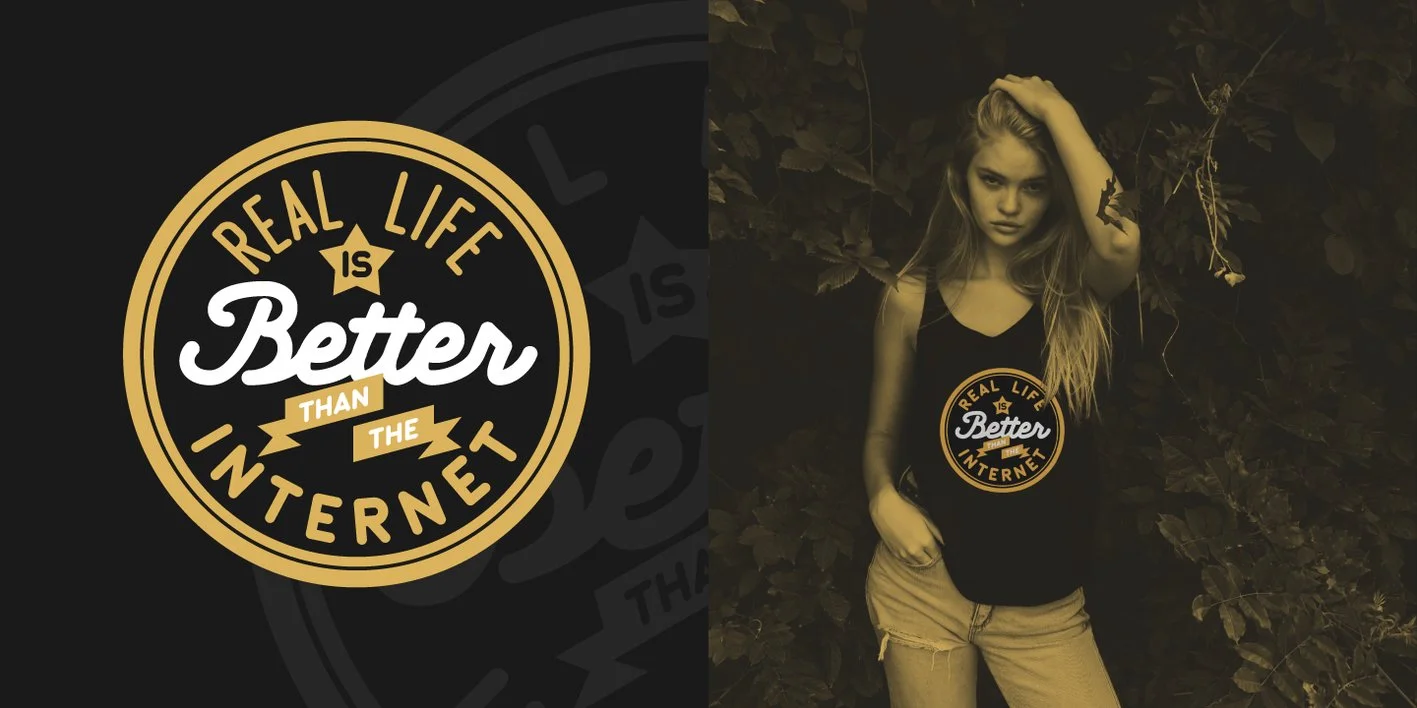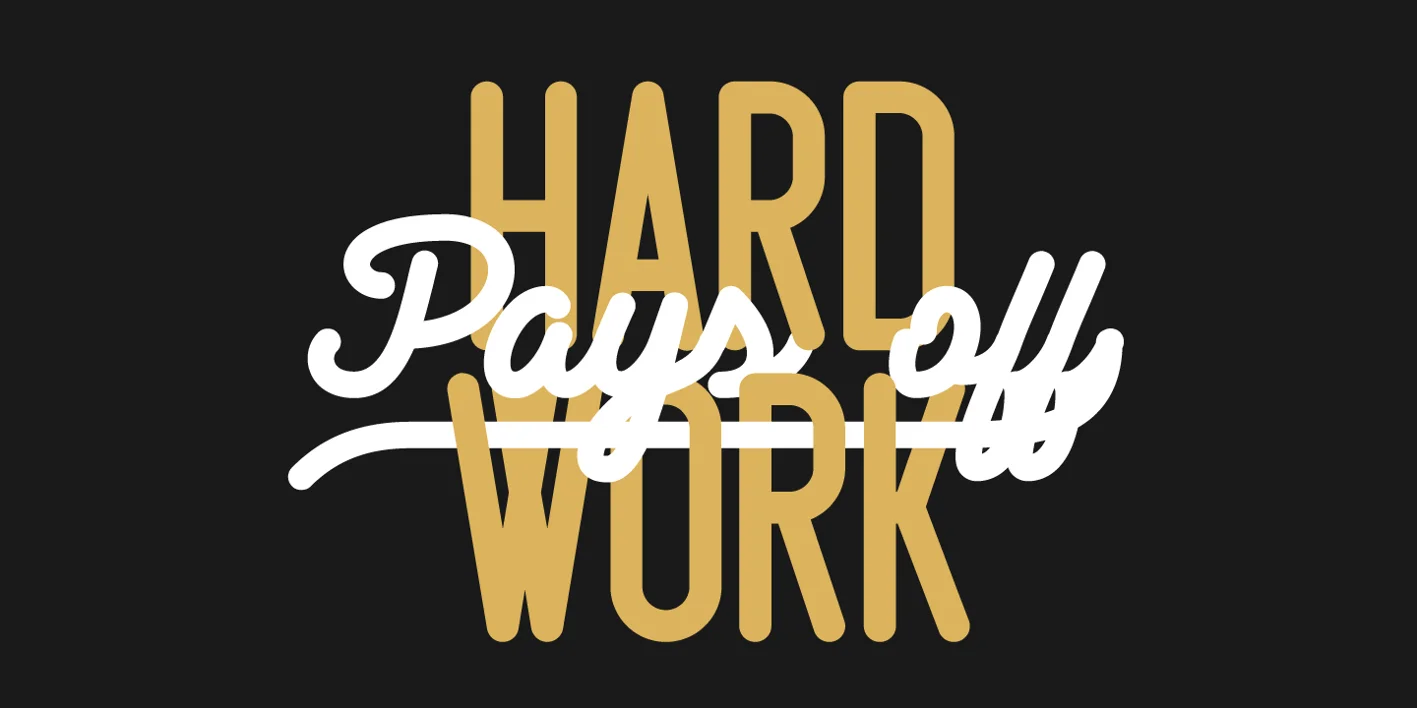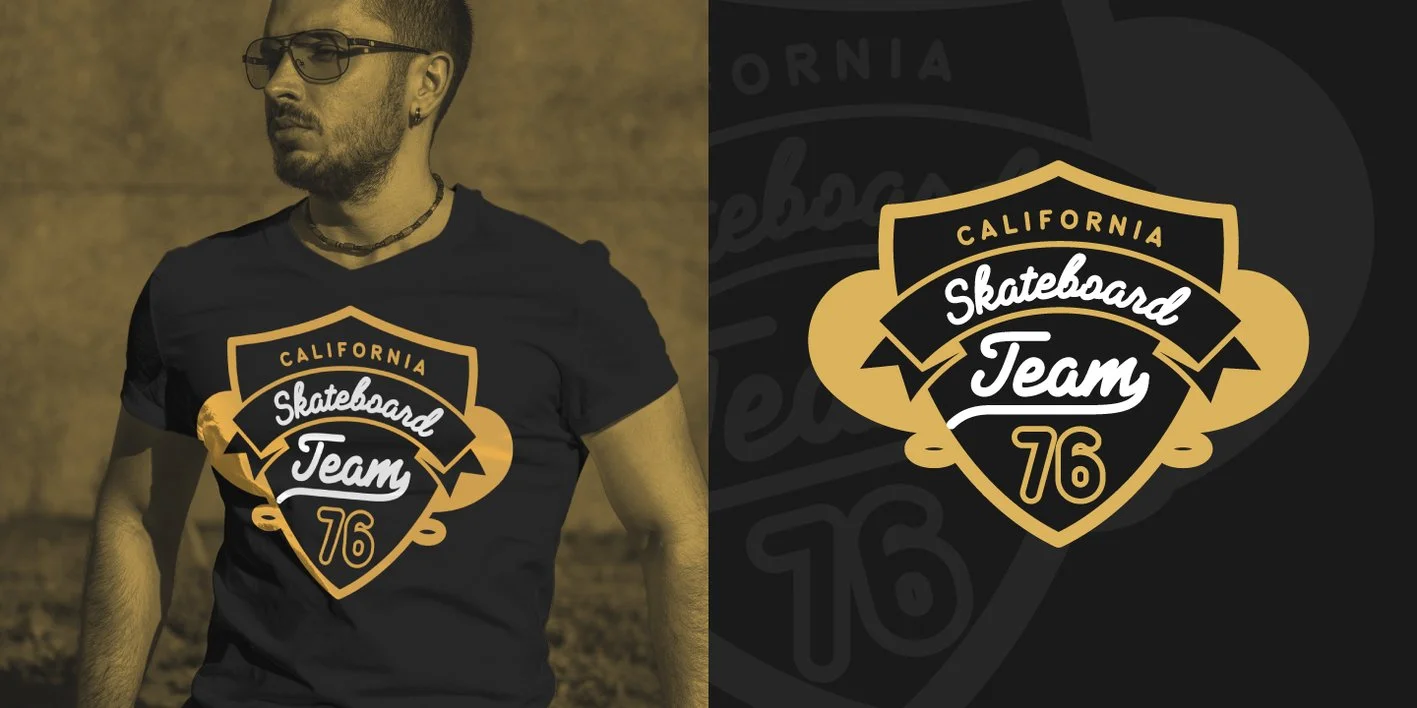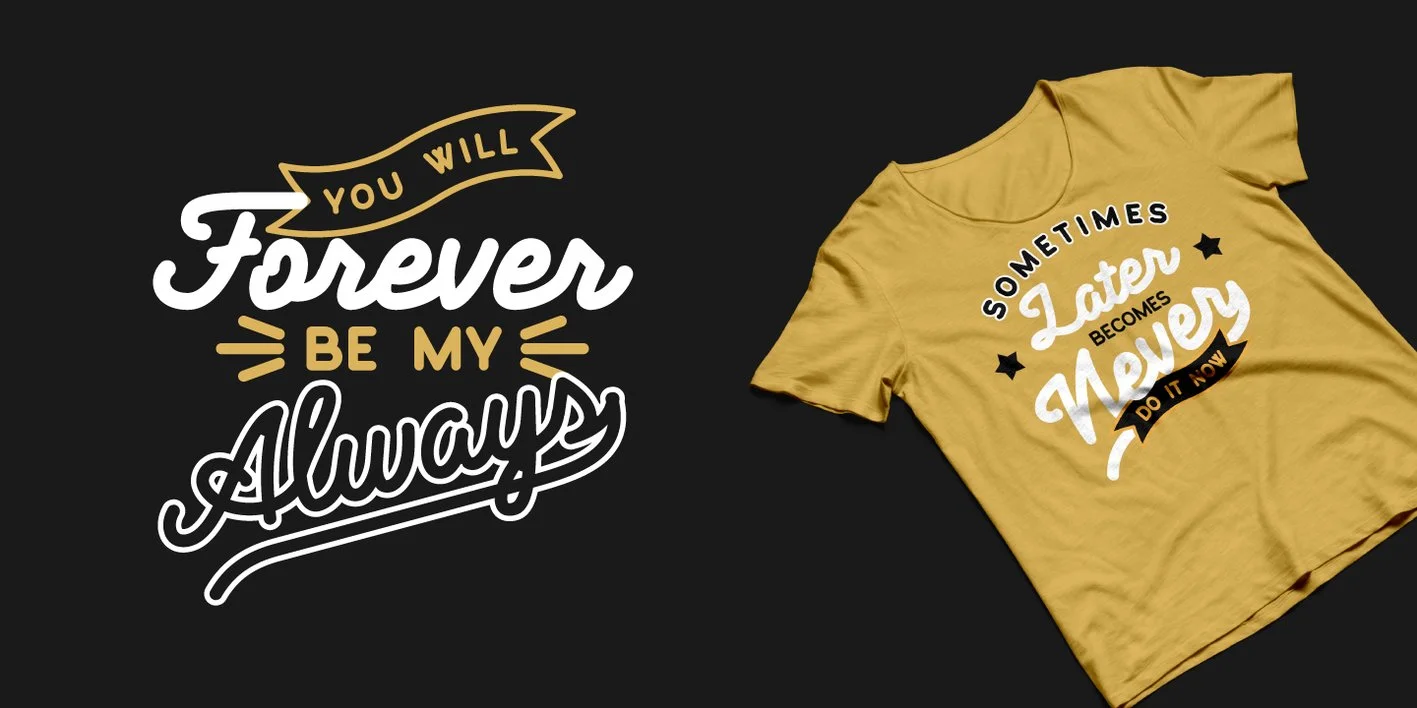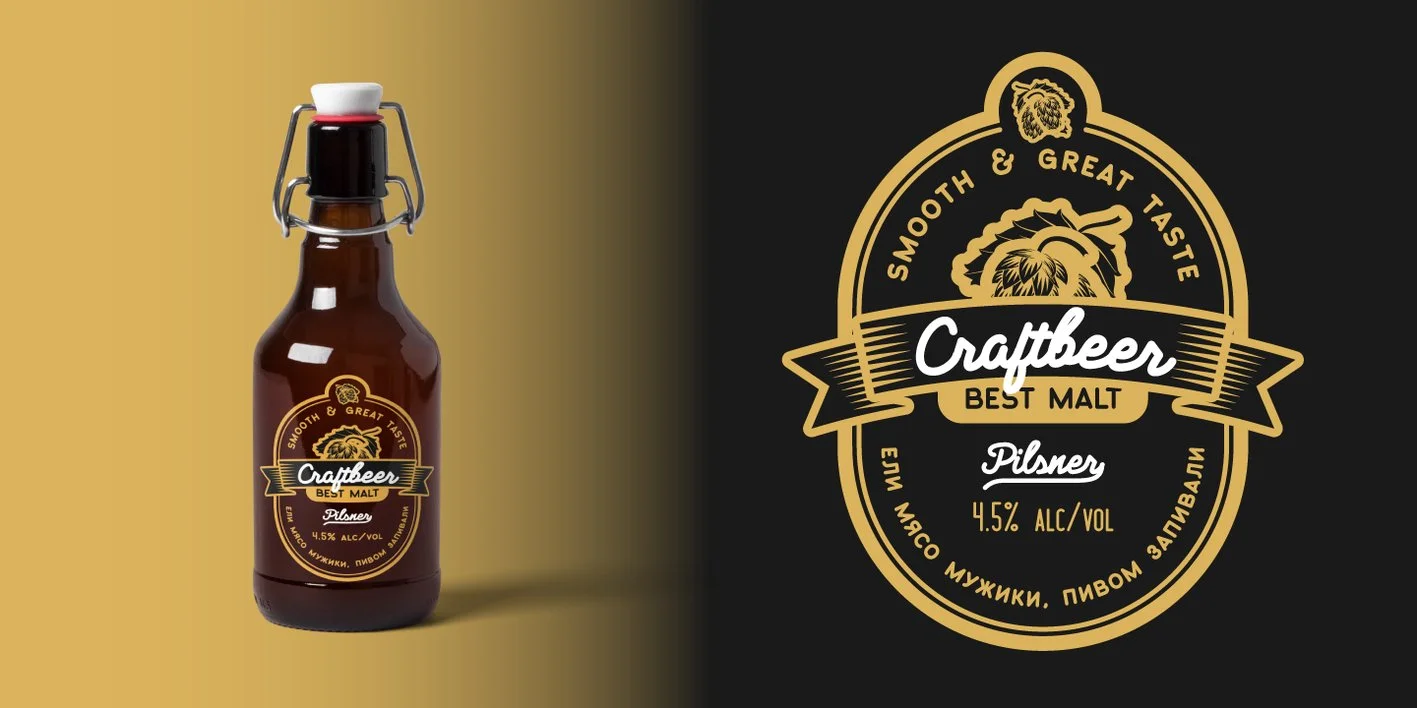
Heartland Font
Typography shapes perception at a subconscious level. Heartland leverages strong typographic hierarchy support to make every composition feel considered. The typeface brings a versatile sensibility to a broad range of creative disciplines, with consistent type colour across continuous text that holds up whether the work is print-first or screen-first.
In practice, Heartland proves particularly effective for product labels, annual reports, social media graphics, logo design, advertising campaigns. Designers reaching for it find that the type decisions feel resolved rather than laboured — a useful quality when client timelines are tight.
Spacing and kerning pairs have been individually reviewed for the most common letter combinations in English and major European languages. The result is even type colour across continuous text, with no awkward gaps or collisions between adjacent characters.
The range of applications extends to brand identity systems, packaging design, web design, editorial layouts. That breadth is deliberate: the proportions and spacing were stress-tested across a wide range of mock briefs before the typeface was finalised.
Brand strategists building visual languages find Heartland a reliable choice for projects that demand both personality and restraint. The design avoids the self-conscious quirkiness that dates quickly, settling instead for considered distinctiveness that holds up over time.